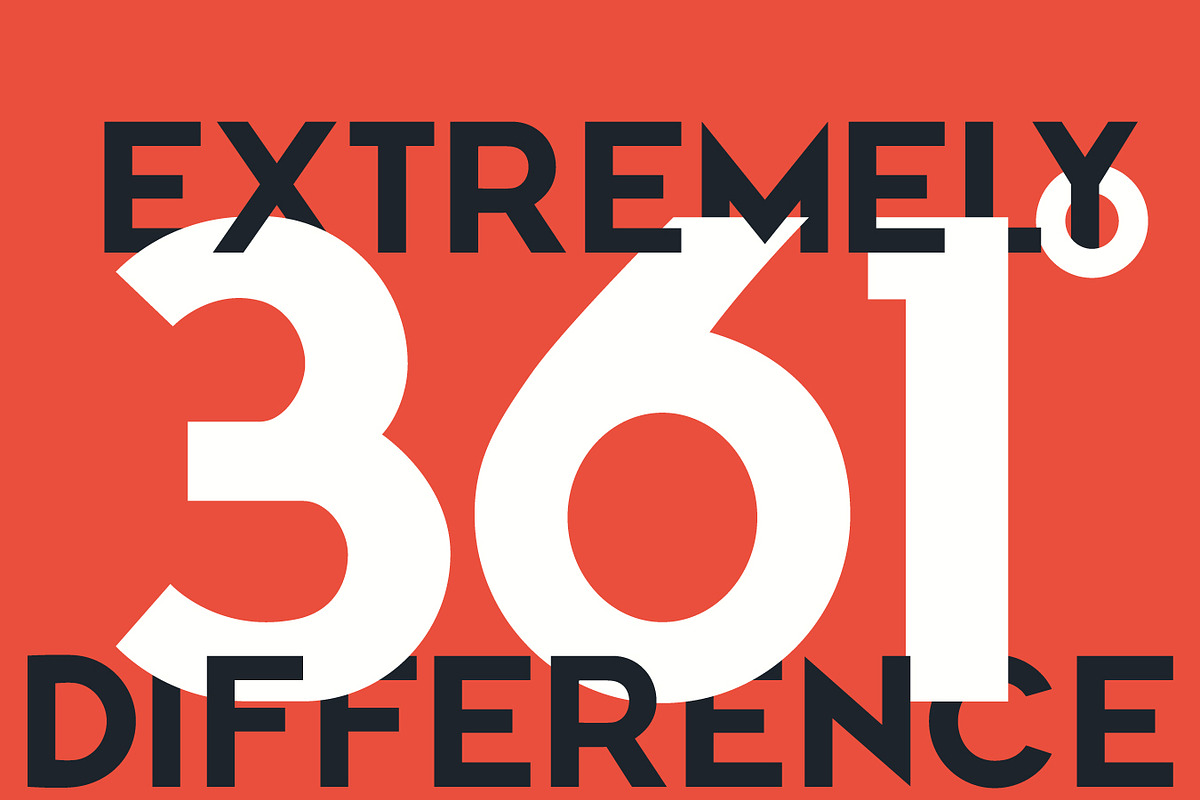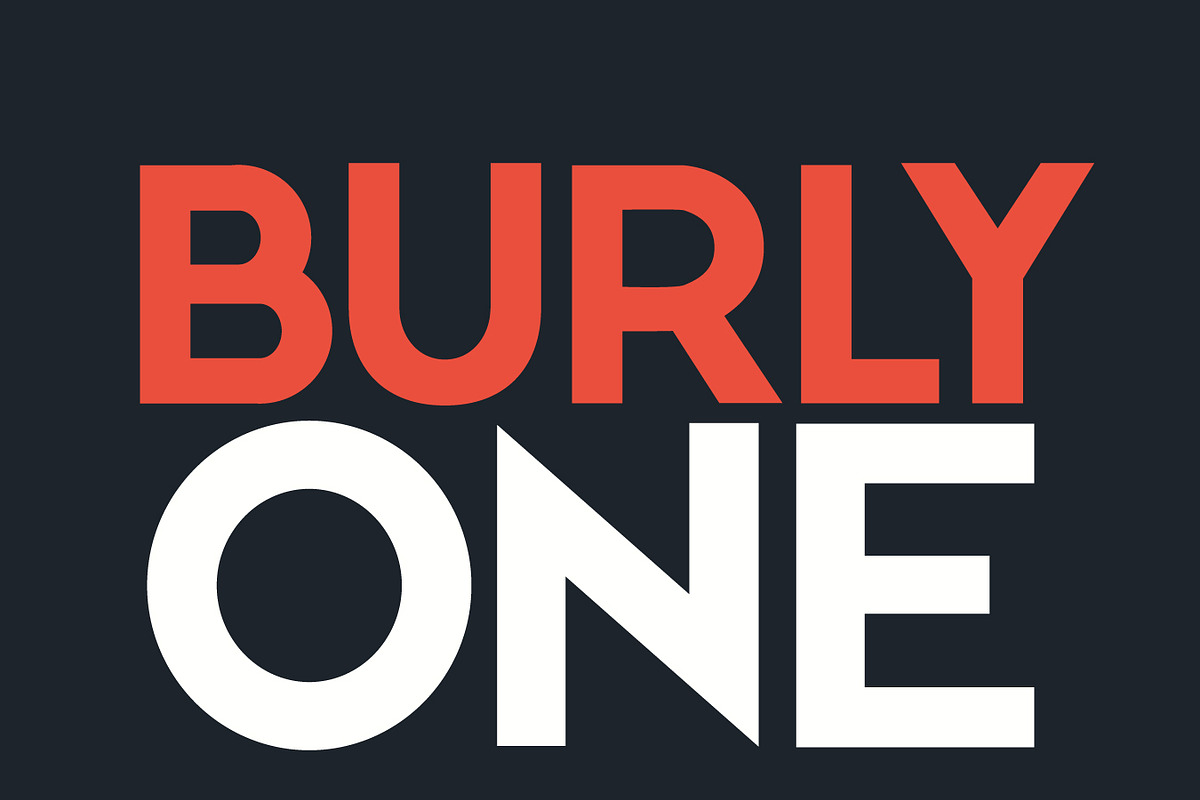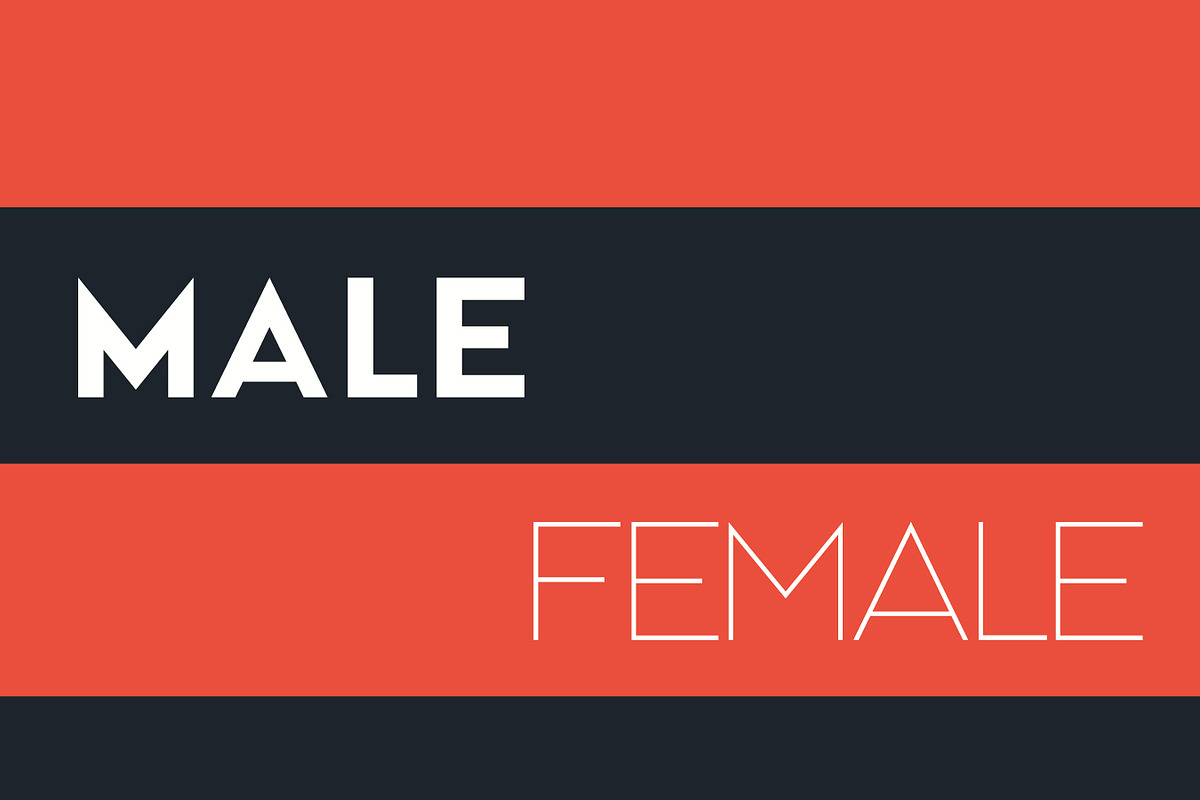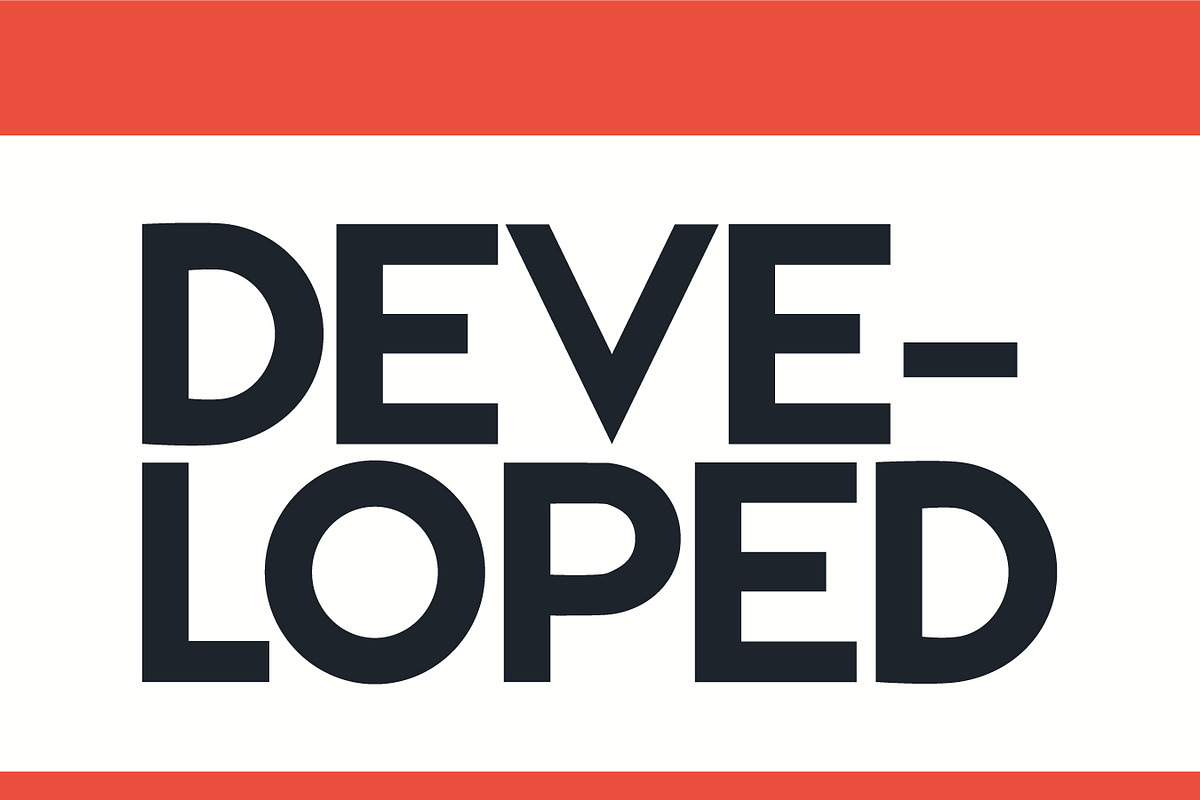
MOAM91 Typeface - Improved Edition
MOAM91 Typeface - Improved Edition by NawrasKhrais is a font selected for branding, posters, packaging, typography.
Why MOAM91 Typeface - Improved Edition is worth a look
MOAM91 Typeface - Improved Edition by NawrasKhrais fits naturally into Branding, posters, packaging, typography.